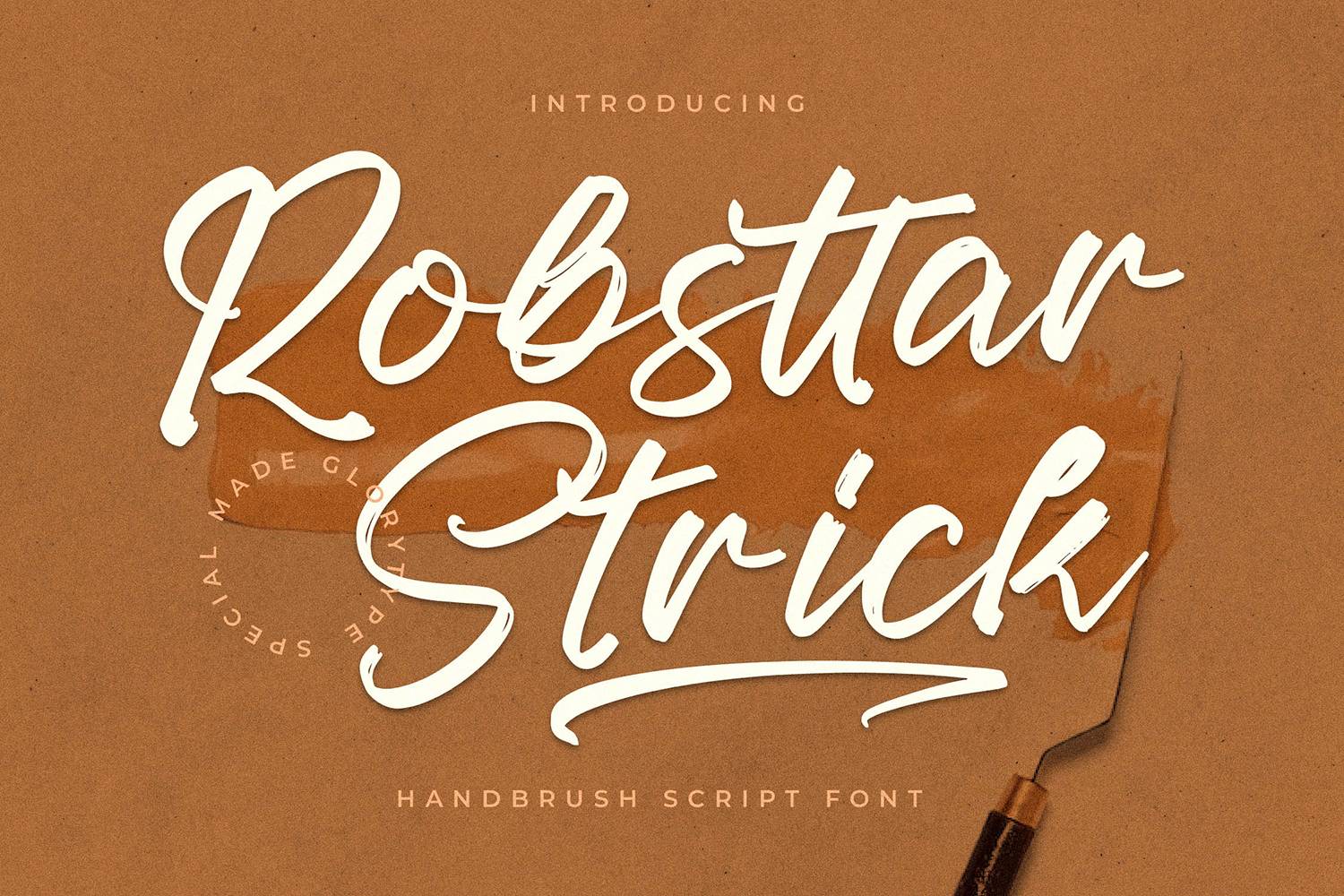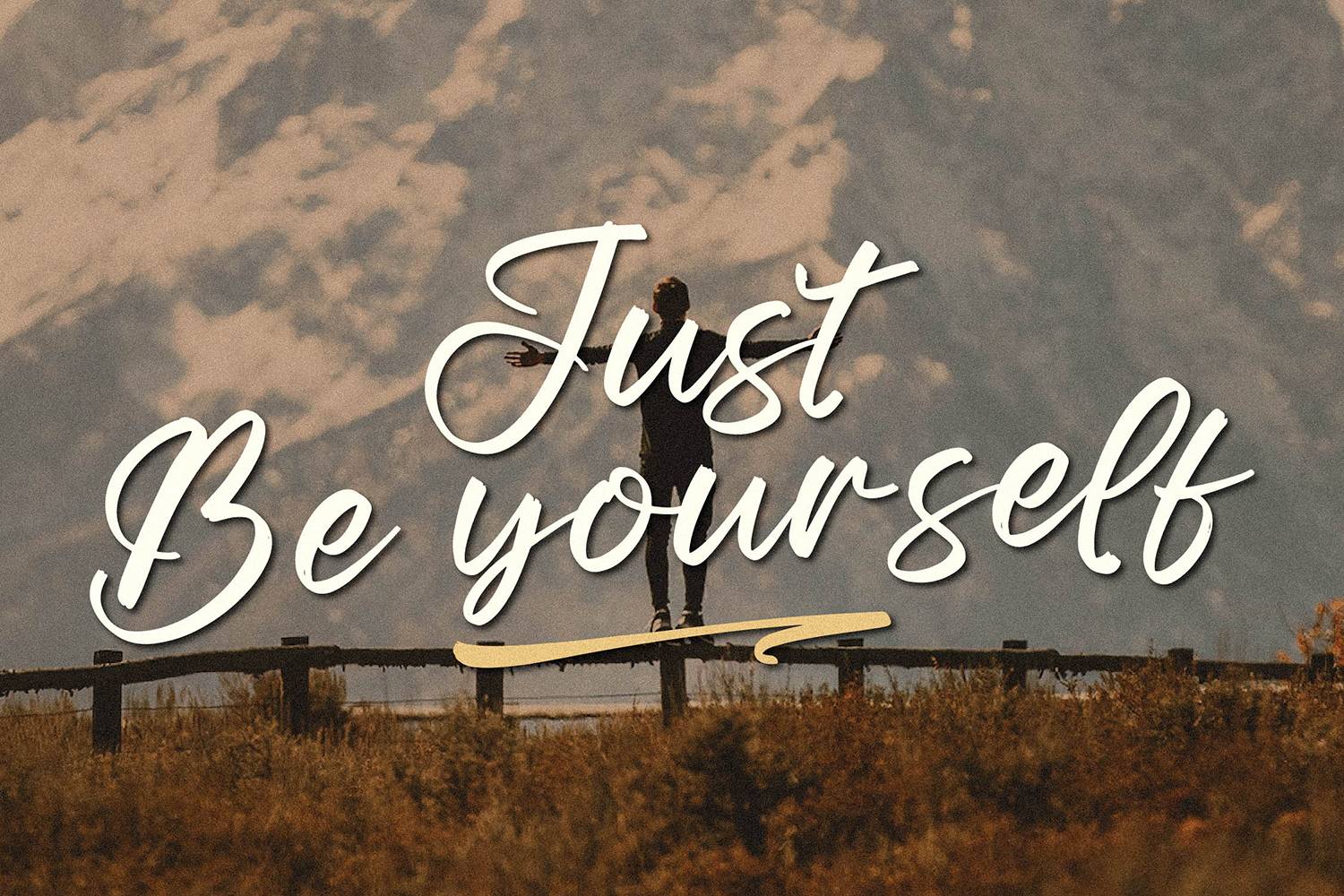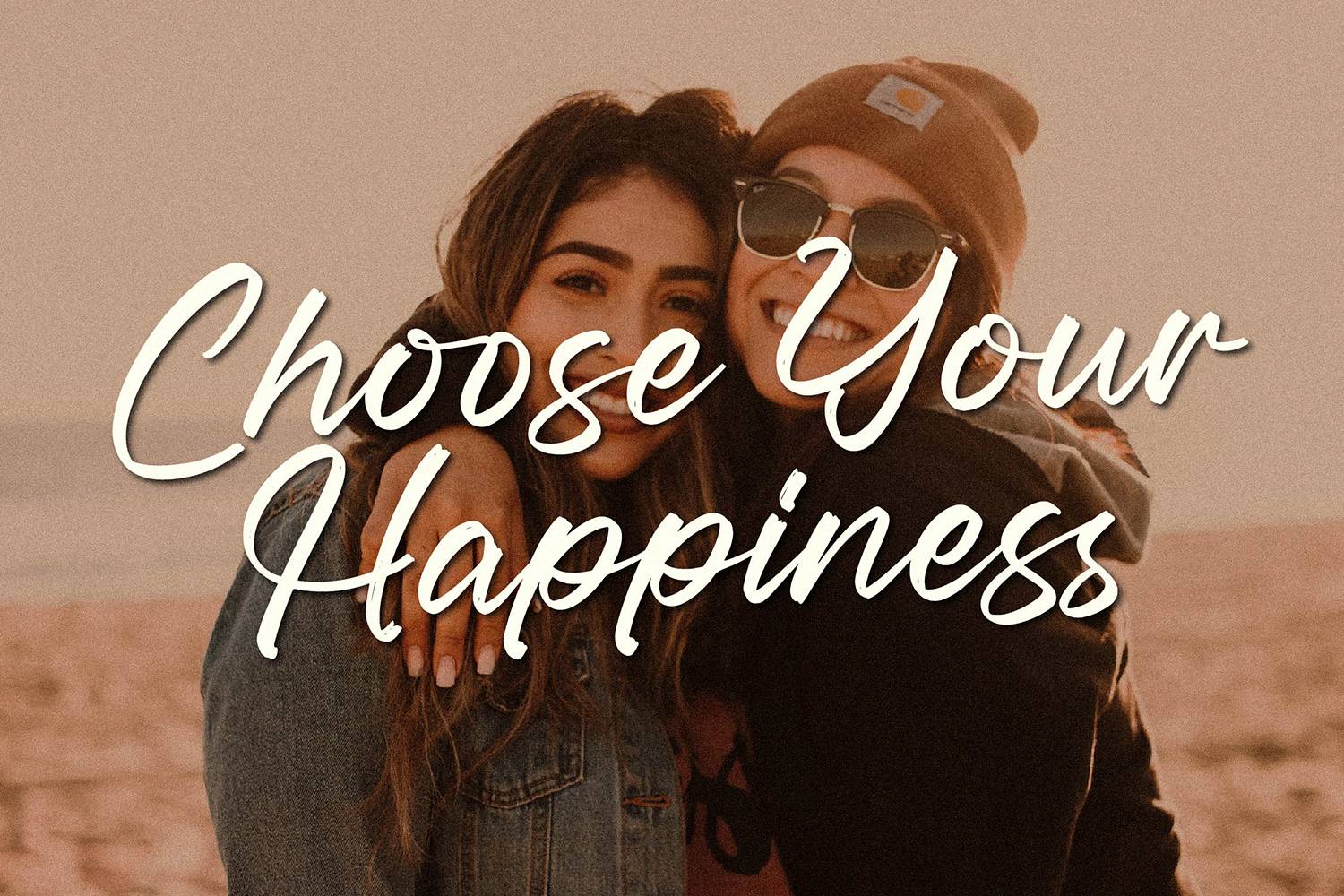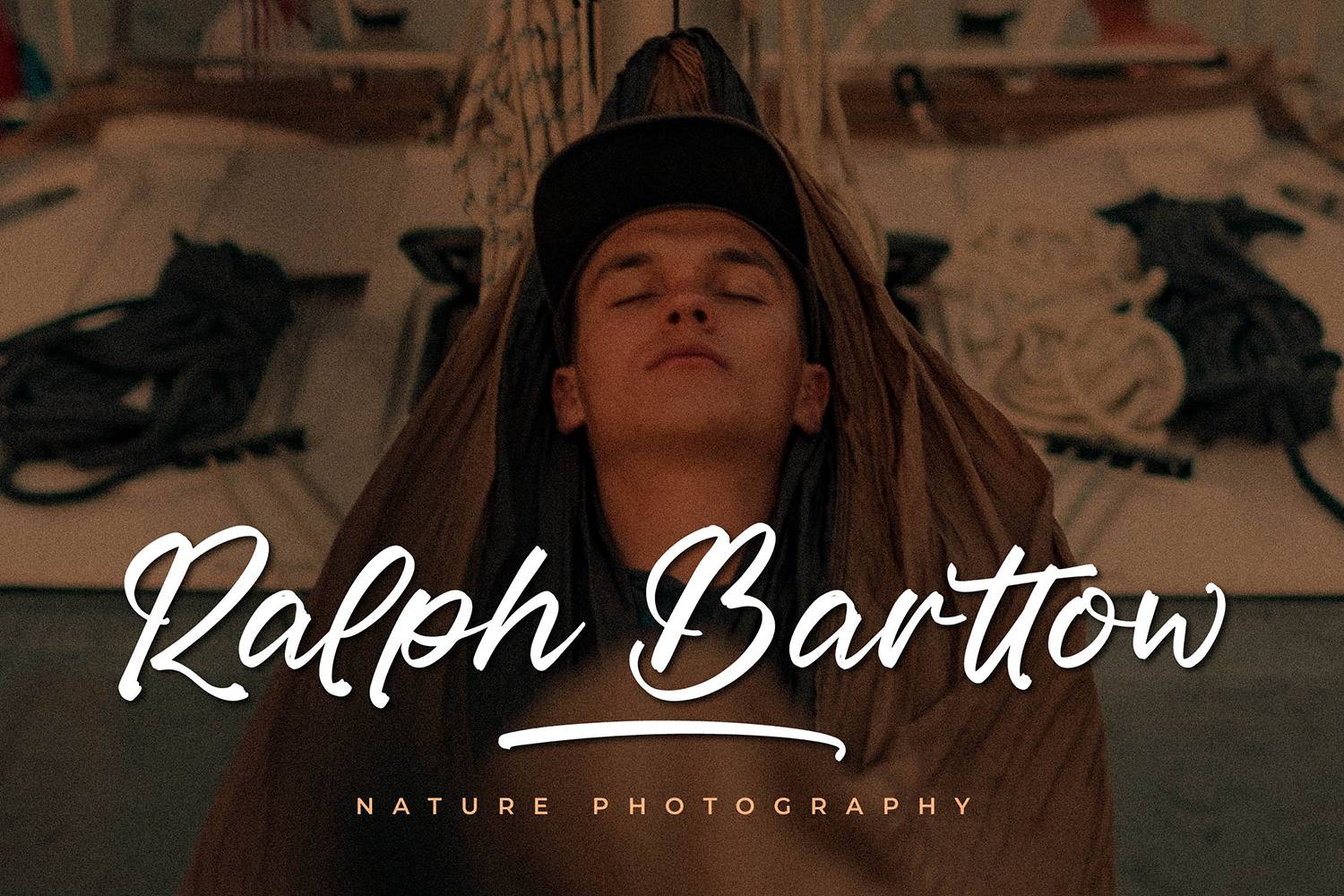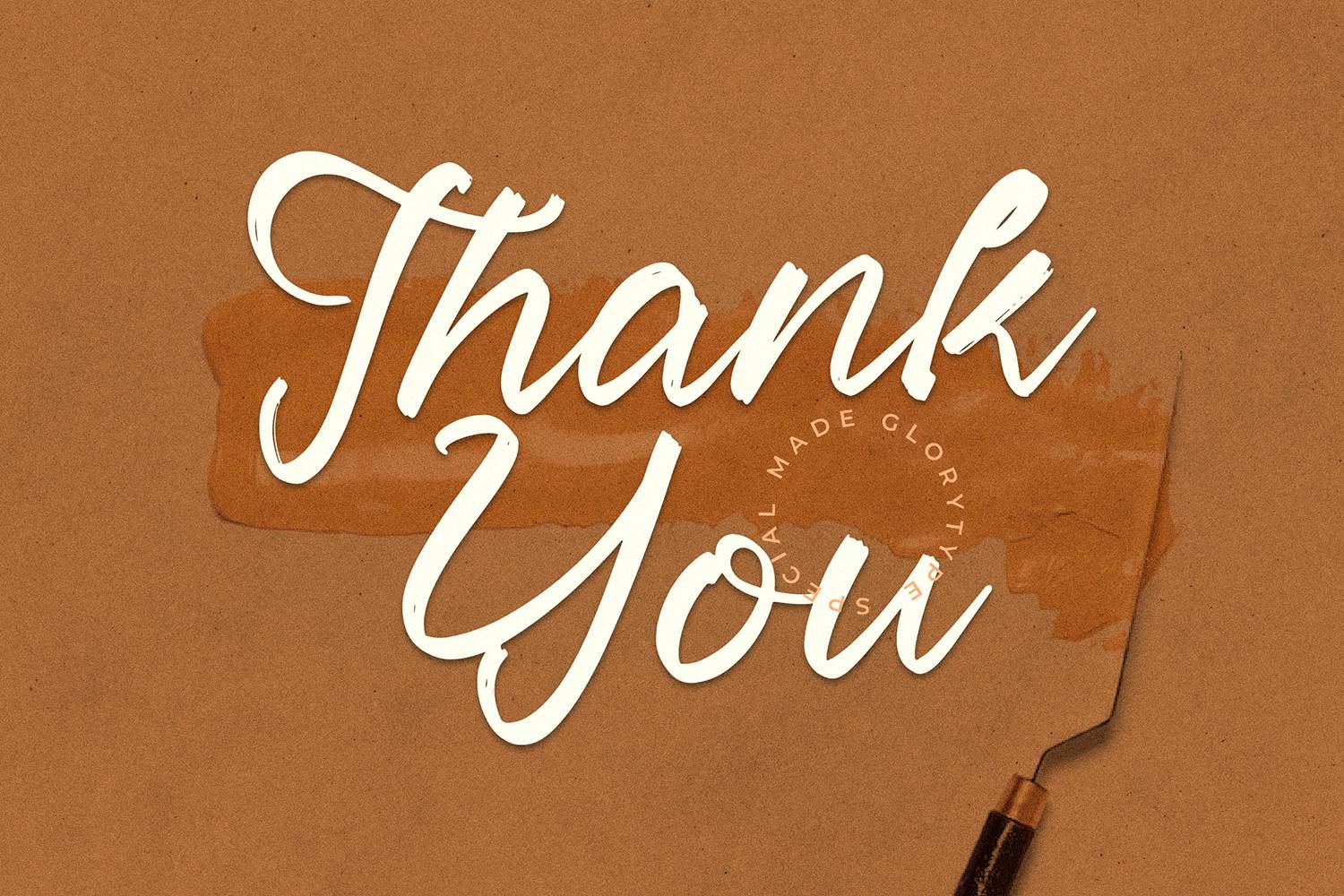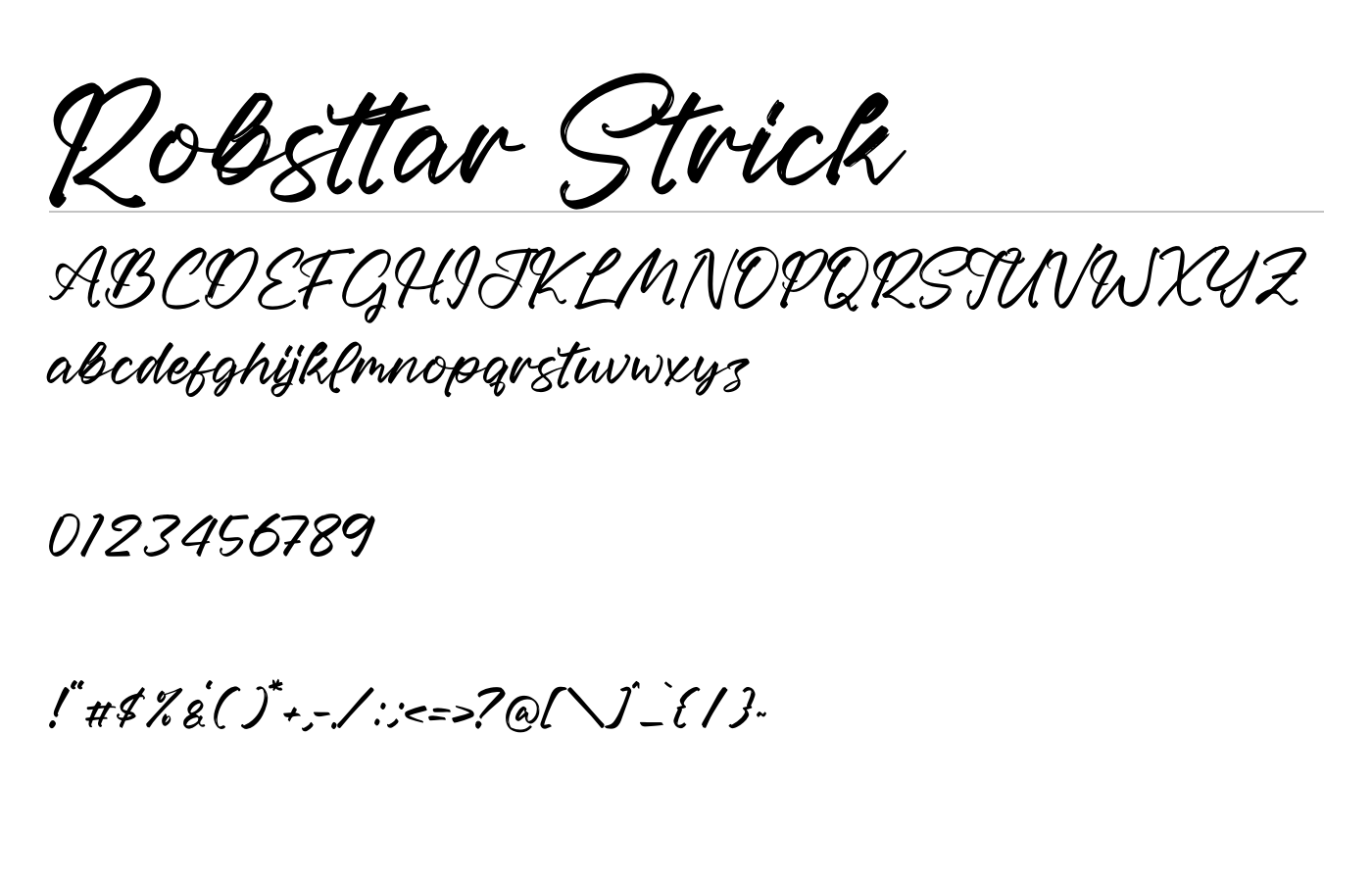
Robsttar Strick is a stylish script font with a lively, handwritten feel characterized by smooth, flowing strokes and moderate contrast in weight. Its elegant yet approachable design suits branding, invitations, and creative projects where a personal, artistic touch is desired. This font works well for headlines and logos, adding a sense of sophistication combined with warm informality.
Robsttar Strick Font
About Robsttar Strick Font